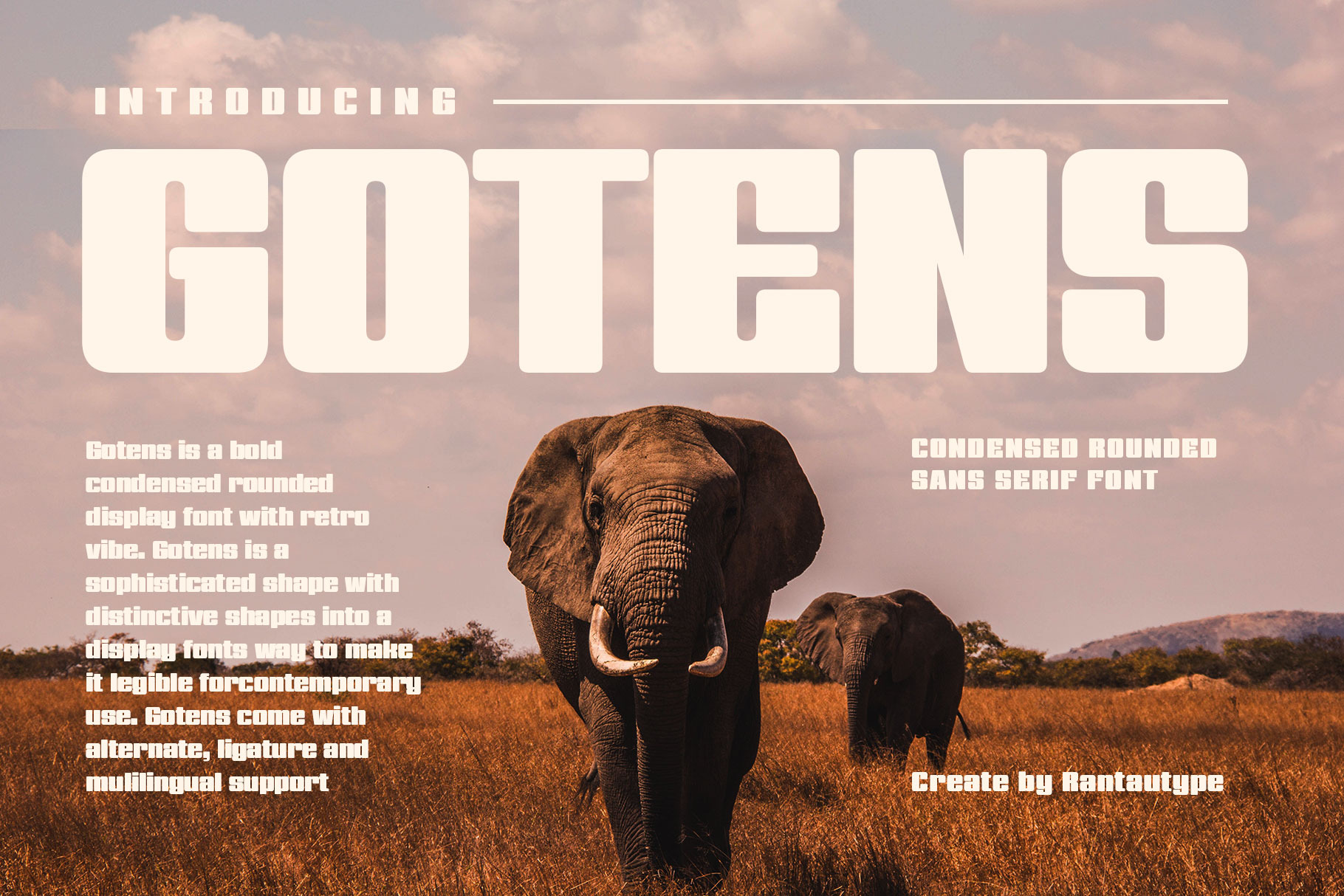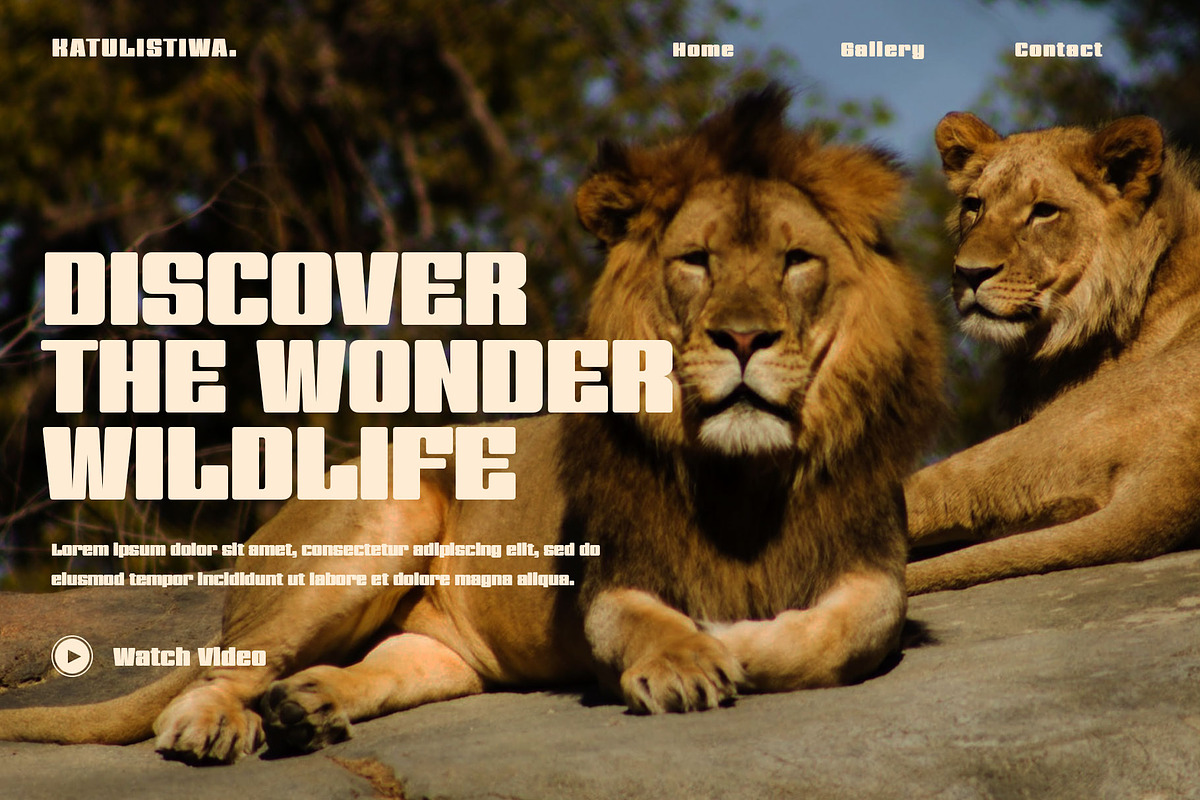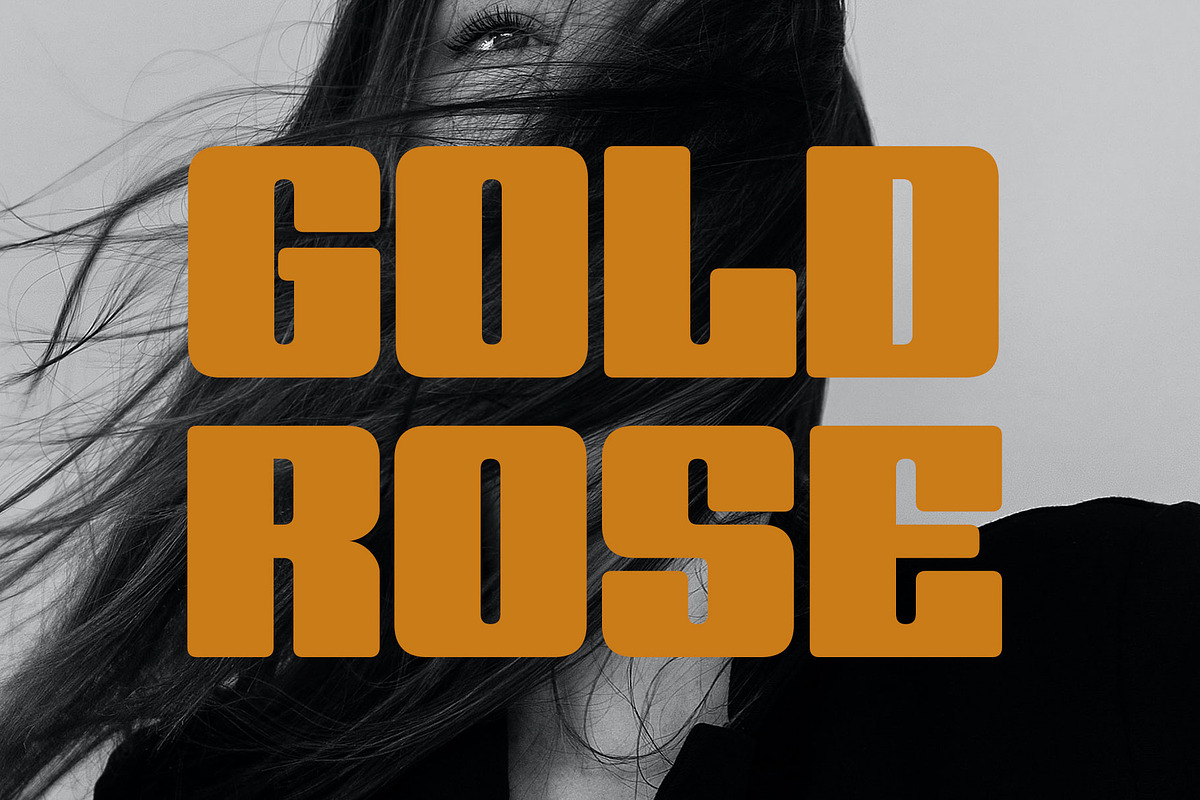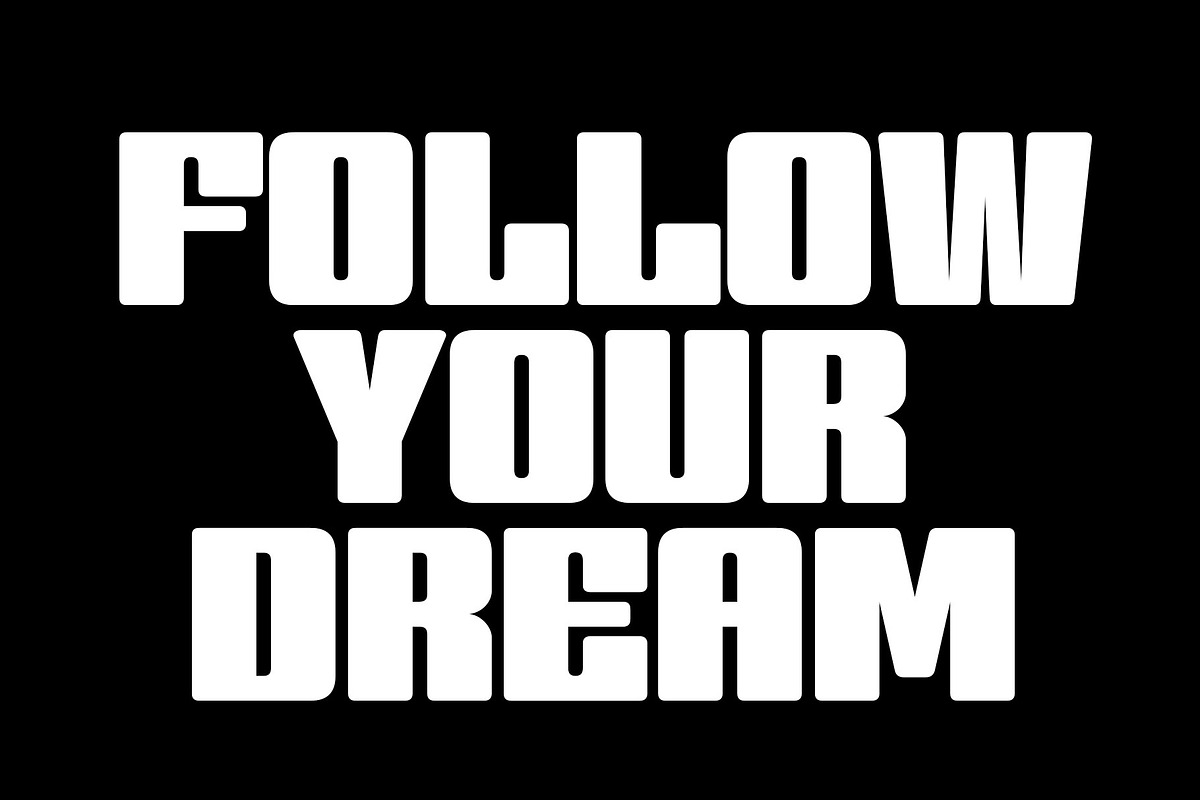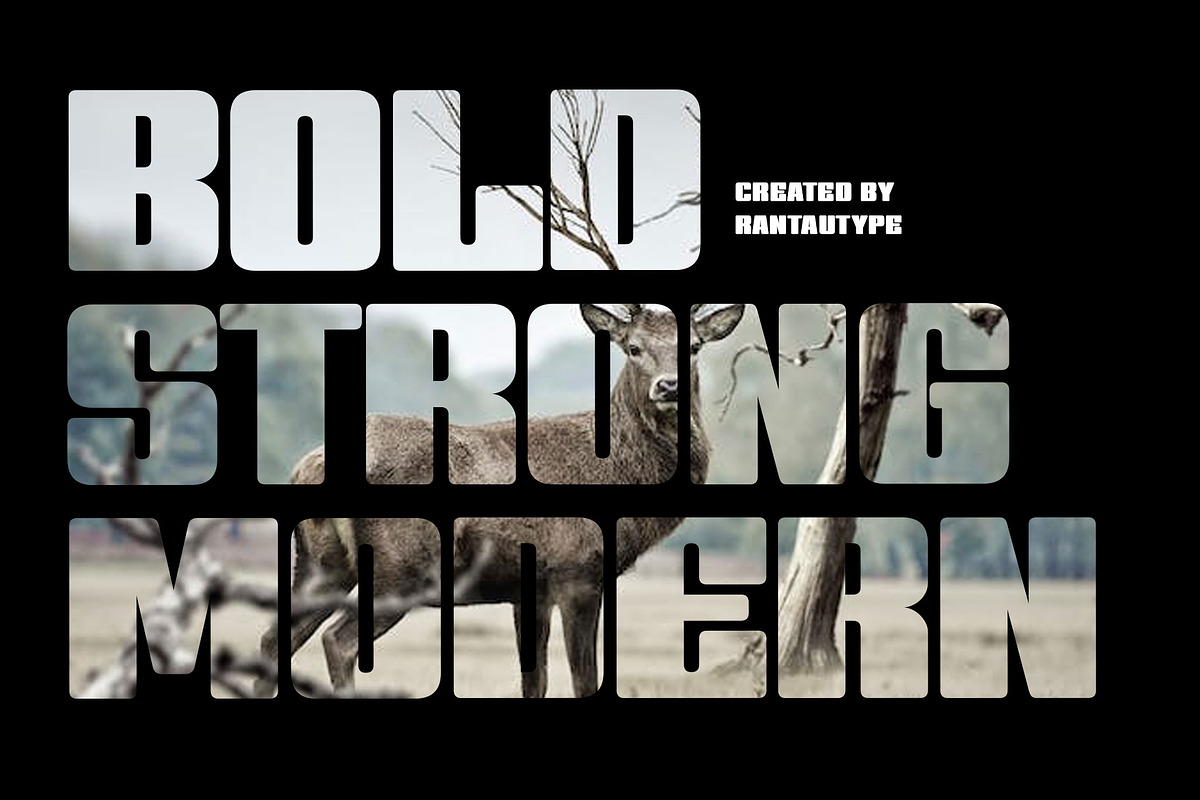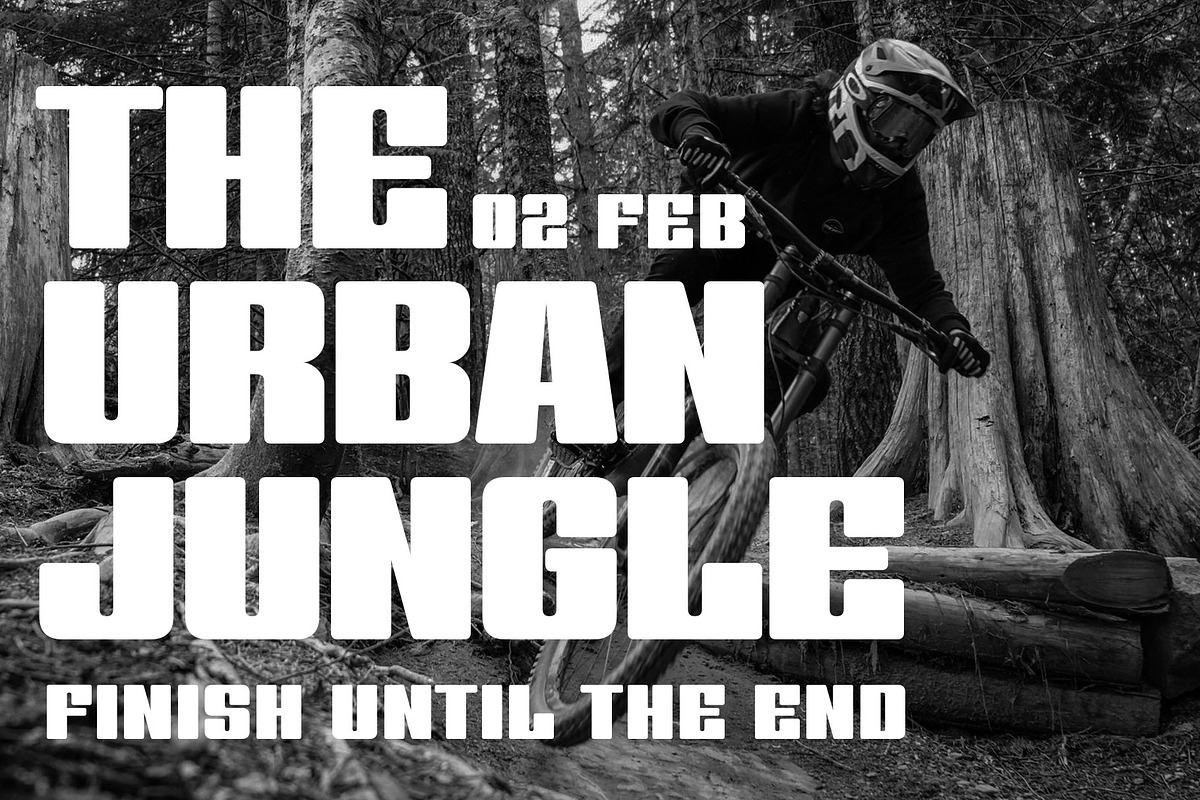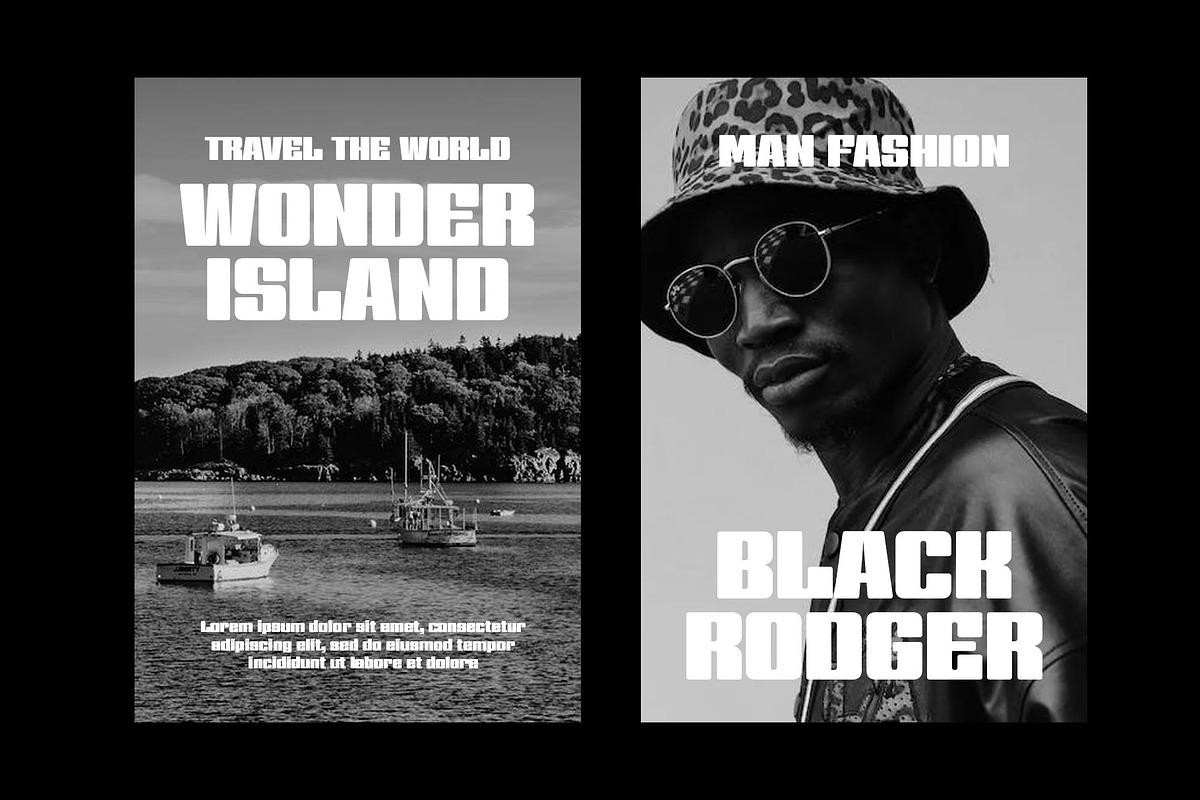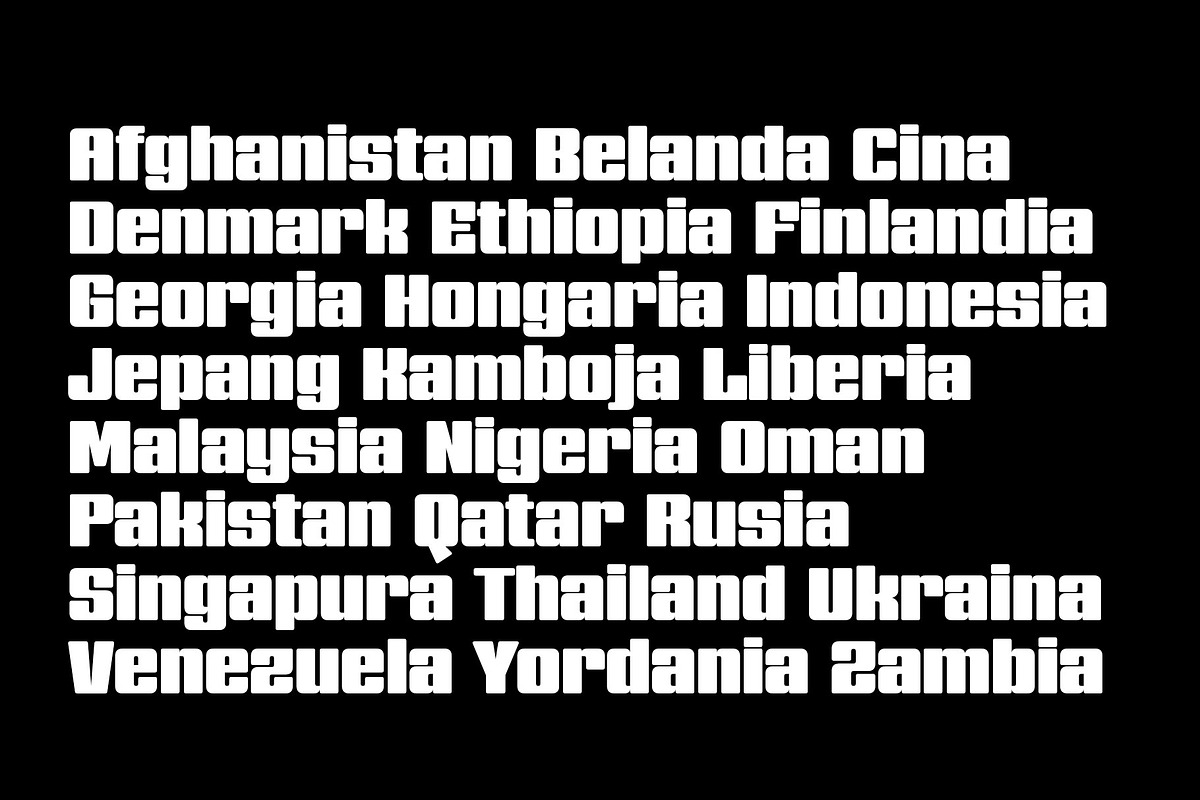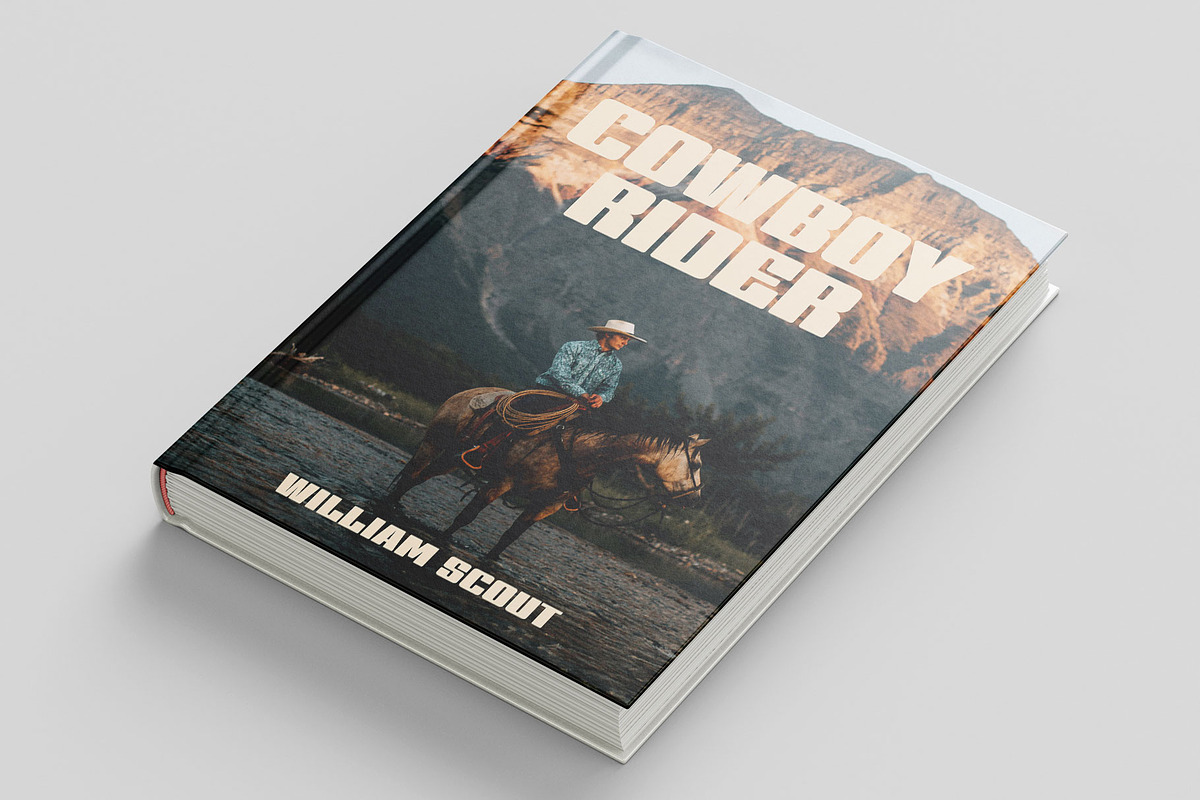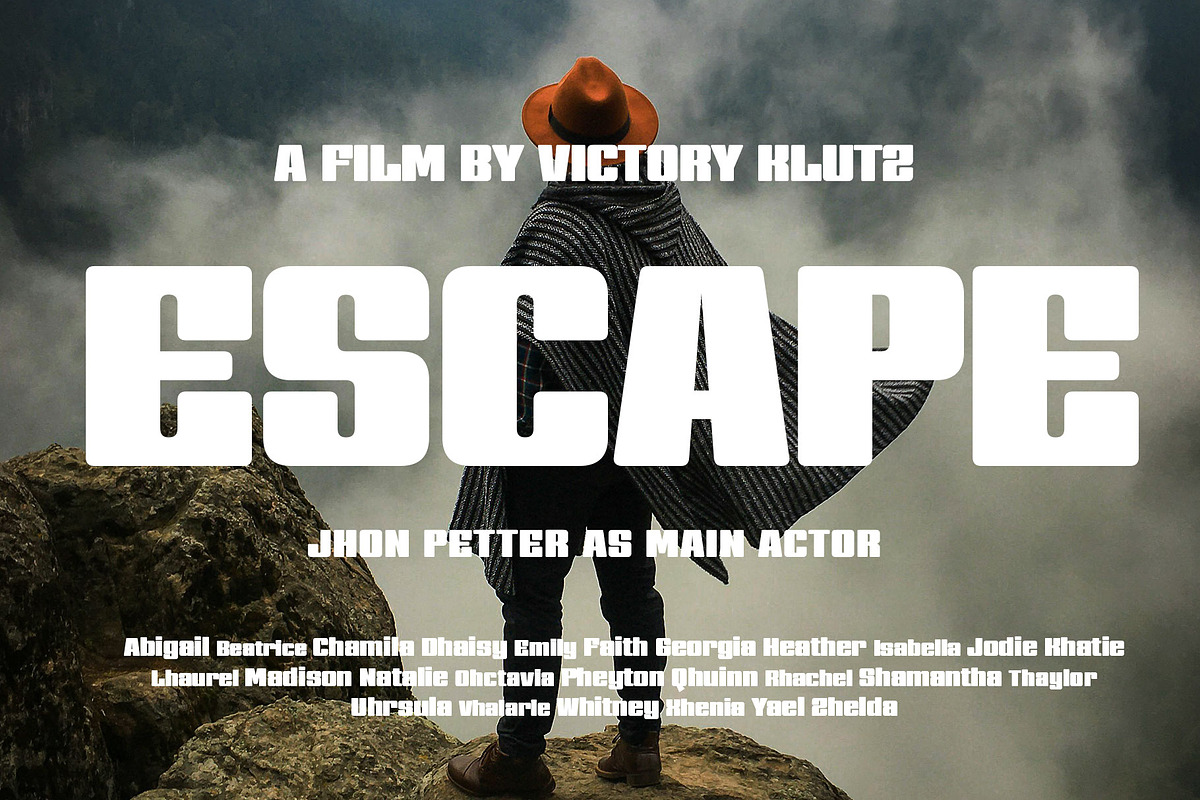
Gotens Bold Condensed Font
Hi Ladies and Gentleman ! Proudly present bold condensed rounded display font Gotens , by rantautype.
Gotens is a bold condensed rounded display font with retro vibe. Gotens is a sophisticated shape with distinctive shapes into a display fonts way to make it legible for contemporary use. Gotens come with alternate, ligature and mulilingual support
Gotens is a beautiful choice for any creative endeavor, chic, lifestyle design such as logos, title, cover, branding, display, magazine and more. Now you using Gotens to elevate you design or branding.
- Standar letter A-Z and a-z
- Alternate and Ligature
- Multilinggual support